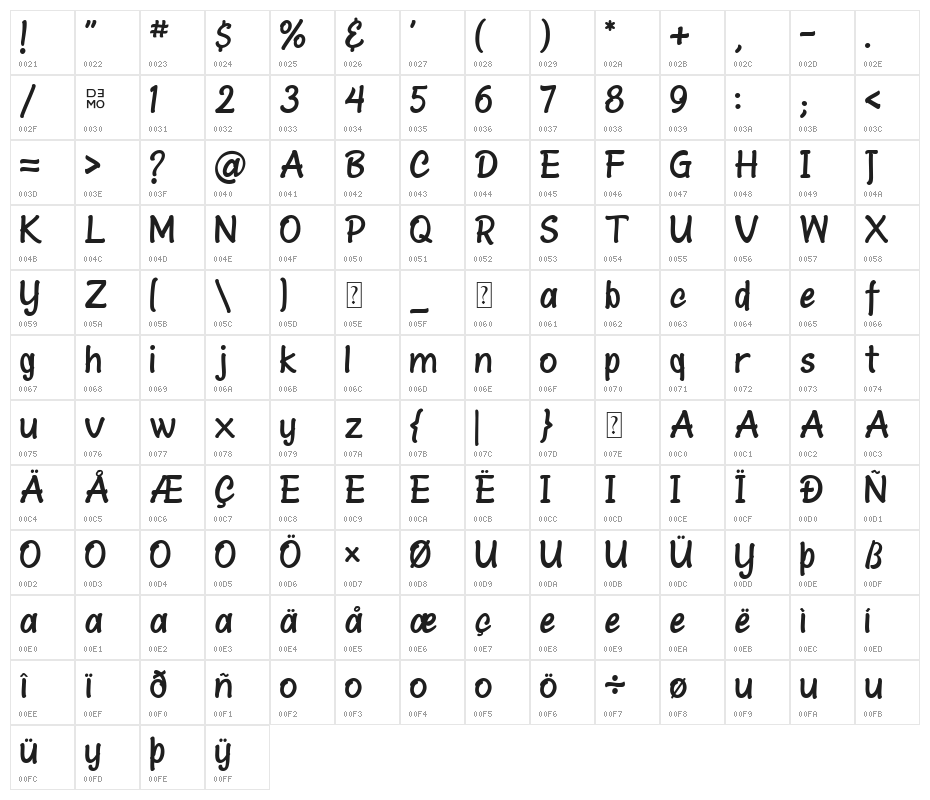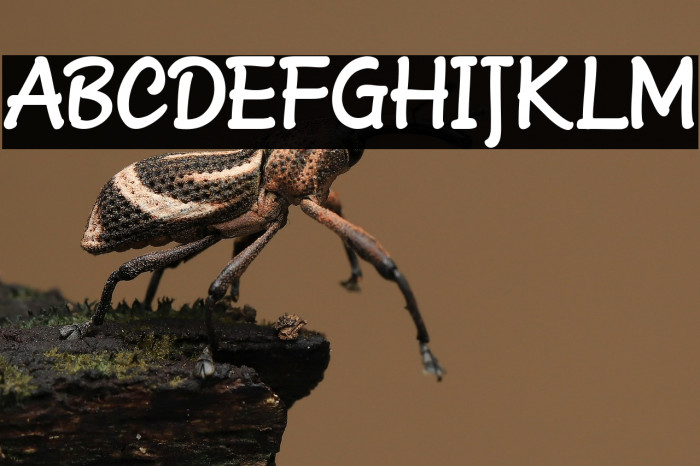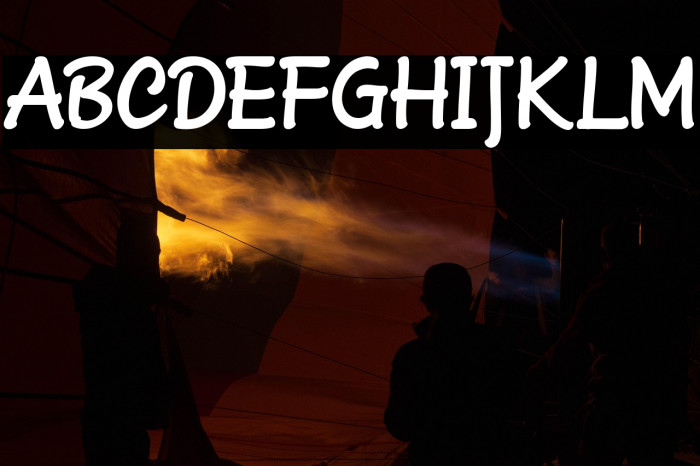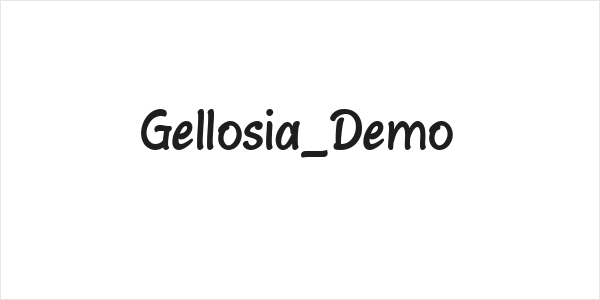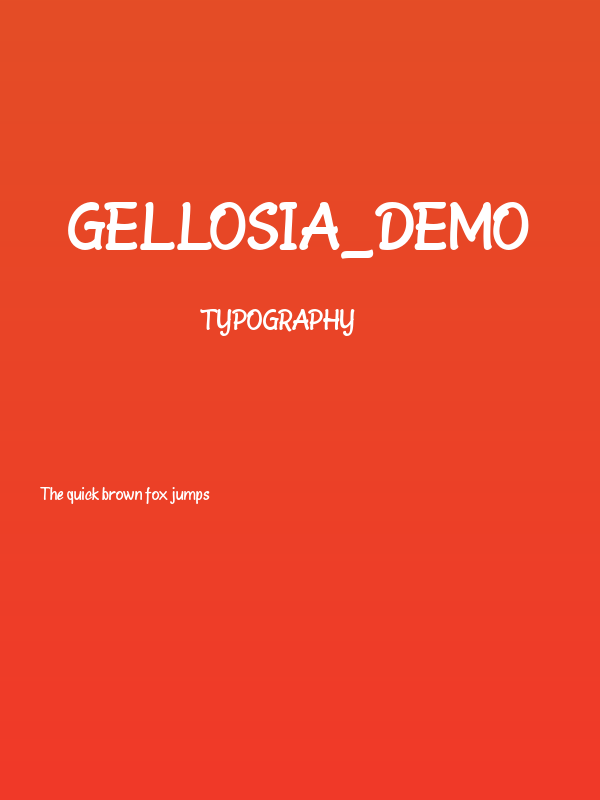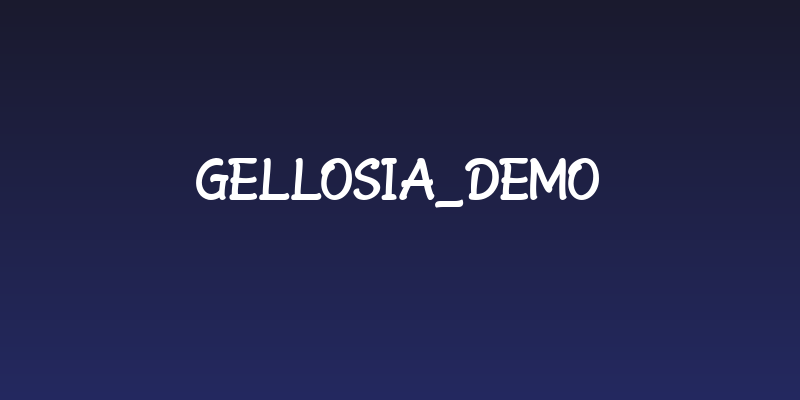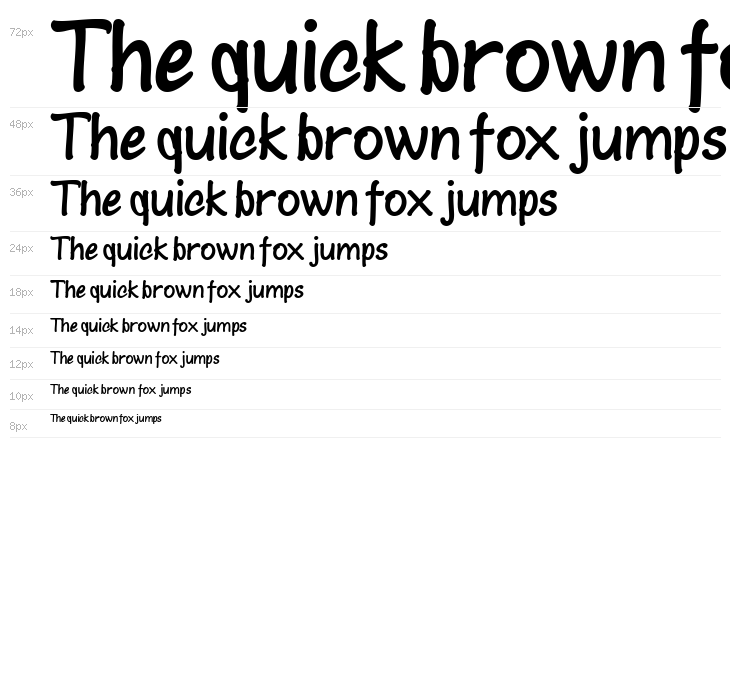
Gellosia_Demo Font
Gellosia_Demo Description
This font features a playful and casual handwritten style, characterized by its smooth curves and slightly irregular strokes. The uppercase letters are bold and rounded, giving a friendly and approachable feel. Lowercase letters maintain a consistent flow, enhancing readability while retaining a personal touch. Numbers are clear and distinct, matching the overall aesthetic. Special characters are well-integrated, maintaining the font's cohesive look. The font's informal nature makes it suitable for creative projects, adding a touch of personality and warmth.
| Proposed Projects | Ideal for greeting cards, invitations, children's books, and creative branding. |